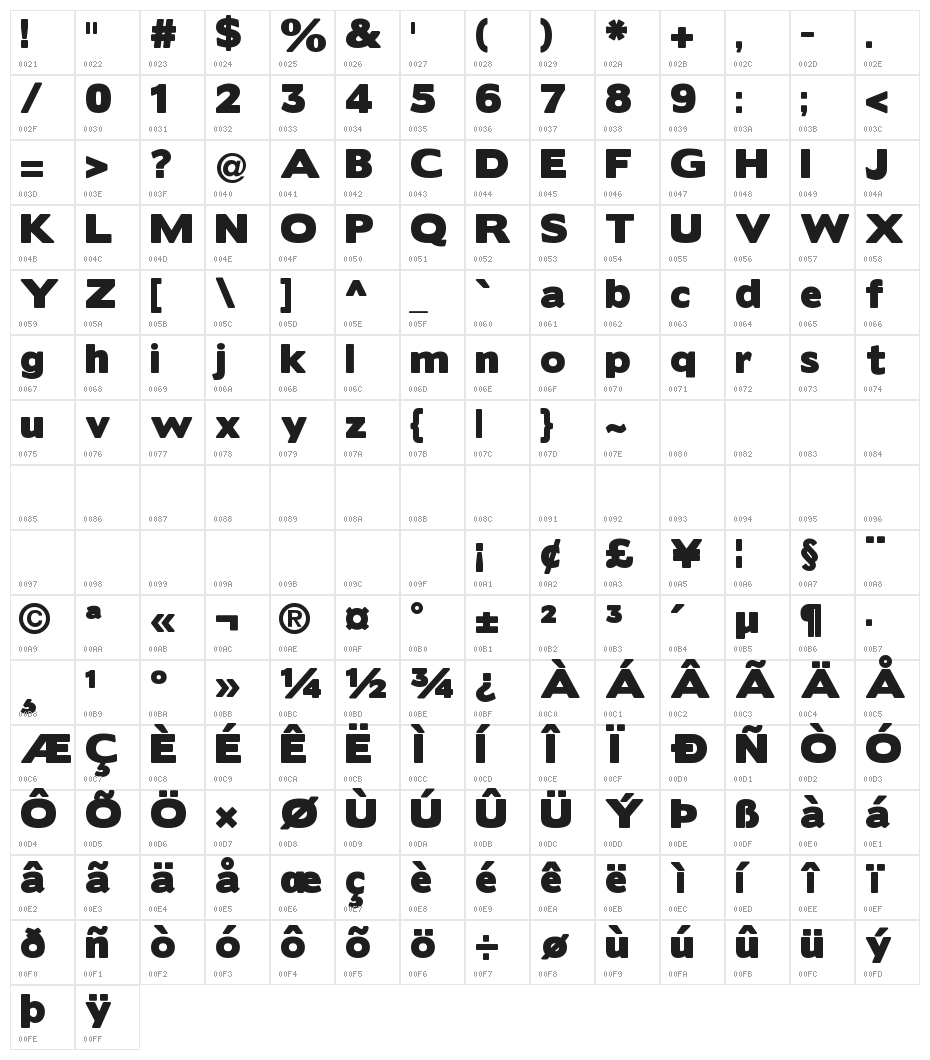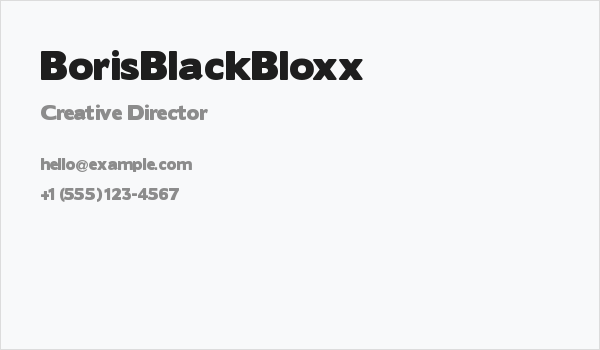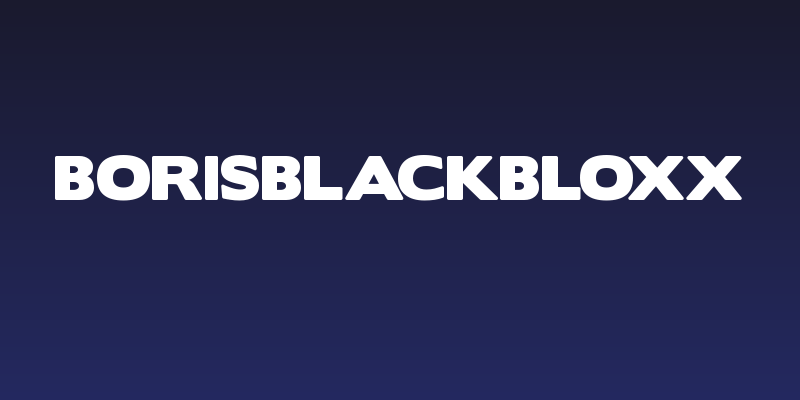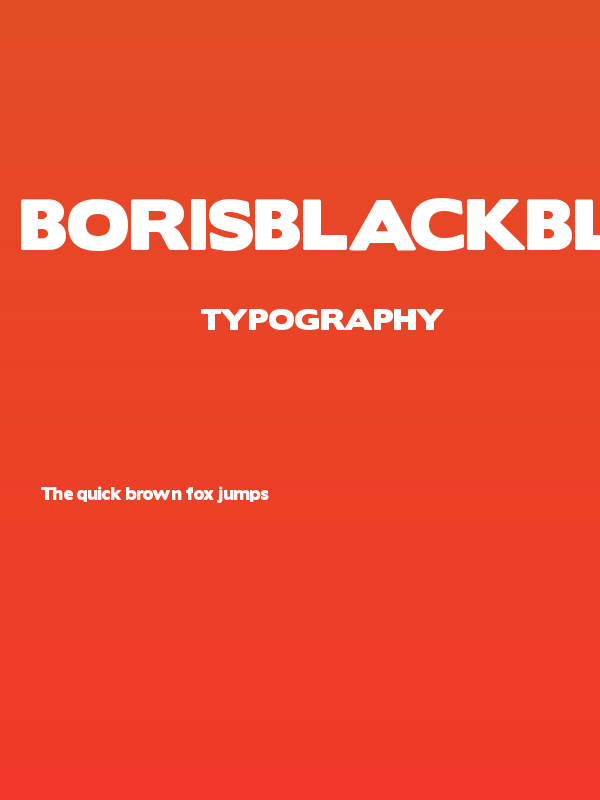
BorisBlackBloxx Font
BorisBlackBloxx Description
This bold, sans-serif typeface features thick, uniform strokes that create a strong and impactful presence. Its geometric shapes and clean lines give it a modern and robust appearance, making it highly legible even at smaller sizes. The characters are evenly spaced, contributing to its readability and versatility. The font's weight and width are consistent throughout, providing a cohesive and balanced look. It includes a full set of uppercase and lowercase letters, numerals, and a variety of special characters, making it suitable for a wide range of applications.
| Proposed Projects | Ideal for branding, headlines, posters, and any design requiring a strong visual impact. |